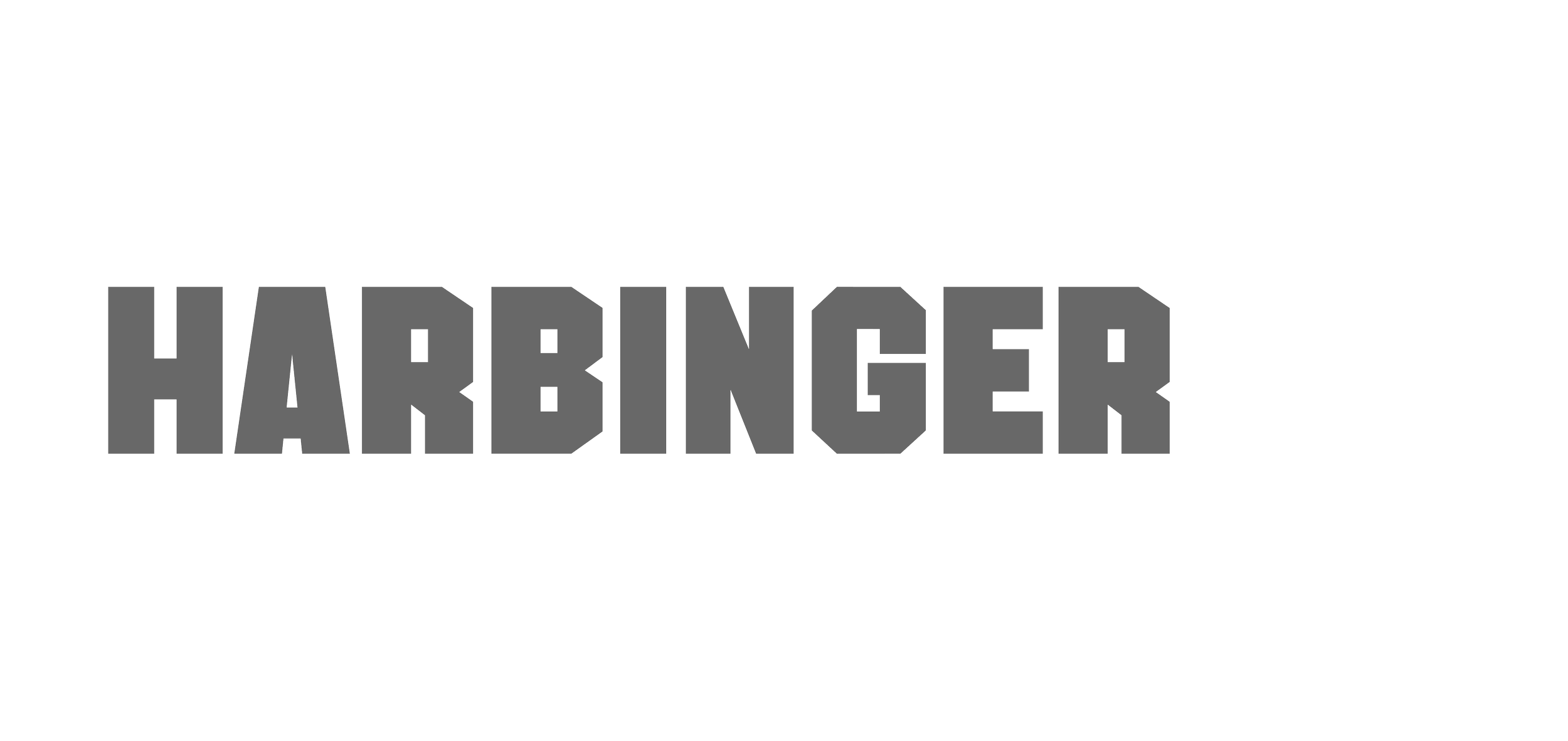
Harbinger
Thick, cut, sturdy. YRT Harbinger brings the beef. This geometric, collegiate chunk-of-a-typeface brings low contrast and high personality. Good for layouts and design that need that extra “oomph” and punch of power.